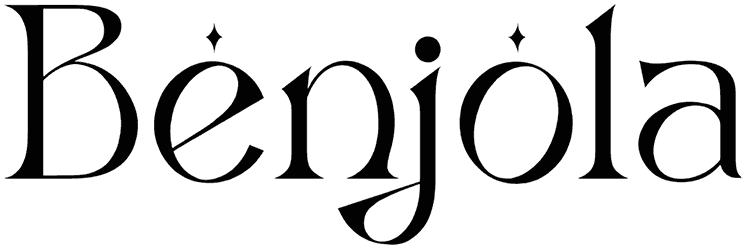
Benjola Font
To bring some sophistication and style, you try an awesome serif font with a unique design. Benjola is a spectacular fashion font that gives your typography an established and reliable mood that would really come in handy.